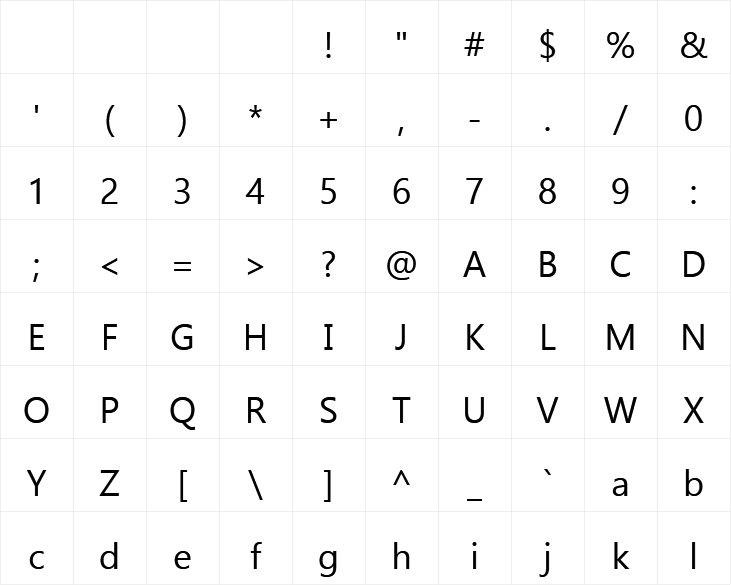
Segoe Ui Font Google
Segoe Ui Font Google. I am getting a bold font of segoe ui light in chrome. But… segoe ui is a windows system font family, owned by microsoft.
I am using segoe ui light font in my website. It has an excellent texture style that is best to use in devices text displays. Open sans is an open source font family, available through google fonts, so “yes” for it.
The font is very versatile, and it can be used for both print and digital media. As far as i am aware, word for. Segoe ui font for the web site and photoshop in all styles.
While It Is Bundled With Windows And Other Microsoft Products, That Doesn’t Make It.
Microsoft's Typography Groups Research And Develop Fonts And Font Technologies, And Support The Development Of Truetype And Opentype Fonts By Independent.
Ironically, This Seems To Be Segoe Ui (At Least, On My Machine).
The Segoe Ui Font Is A Font That Has Been Around For Many Years.
Although it was originally designed by droid, it is very similar to segoe ui in the lowercase format. This paragraph is in segoe ui. The versions of browsers i'm using.